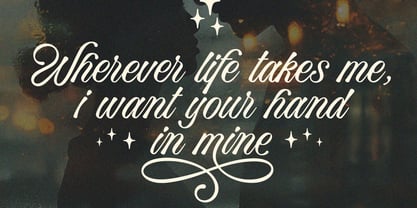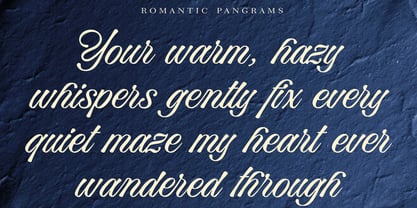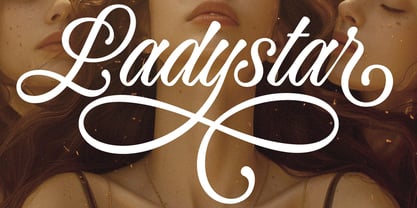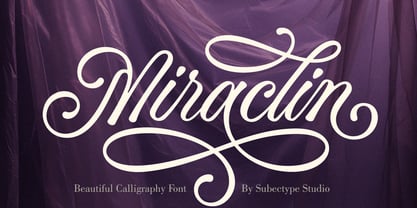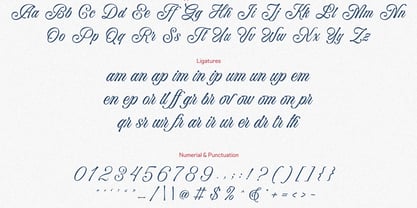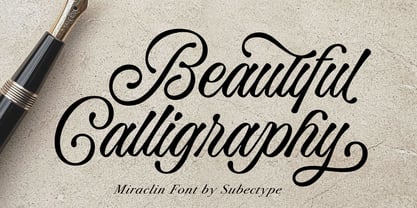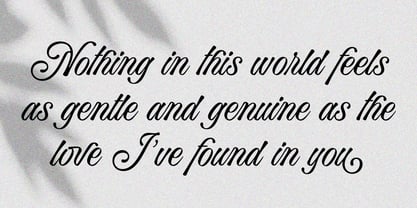
Miraclin
by Subectype
The Miraclin Font Family was designed by Rangga Subekti and published by Subectype. Miraclin contains 1 styles.
Miraclin is a chic and elegant calligraphy font infused with a soft, loving touch. Designed to capture beauty and emotion in every stroke, this font is perfect for wedding parties, invitations, signature branding, logos, packaging, social media, and any creative project that requires a graceful and refined calligraphy style. Its flowing curves and well-balanced letterforms create a harmonious and luxurious feel, making every word look effortlessly beautiful. Miraclin brings a sense of romance and timeless charm, allowing your designs to stand out while remaining classy and sophisticated. Fall in love with its incredibly distinctive and timeless style, and let Miraclin elevate your work into something truly memorable and spectacular.
Designers: Rangga Subekti
Publisher: Subectype
Foundry: Subectype
Design Owner: Subectype